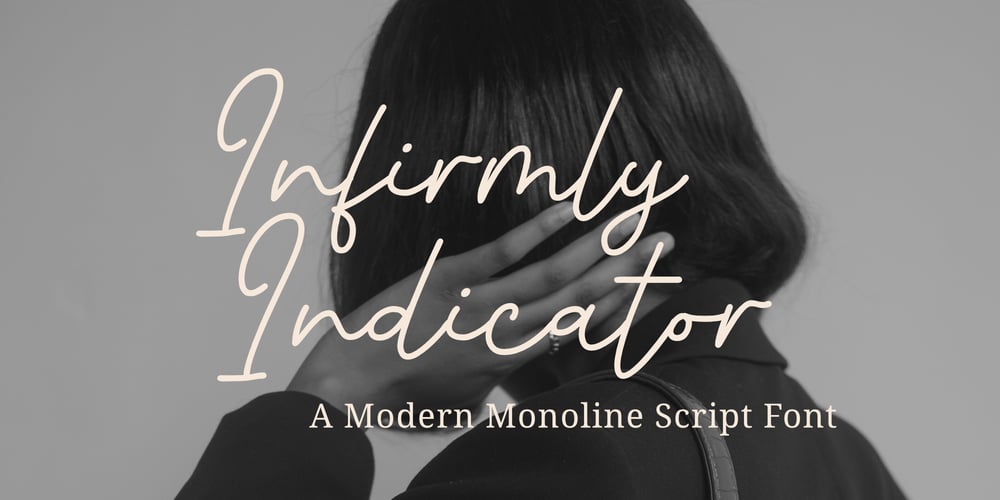
Infirmly Indicator Font Family was designed by Ali Hamidi and published by Ali Hamidi. Infirmly Indicator contains 1 styles and family package options. Infirmly Indicator is a modern and simple handwritten script with an classy touch, this font has a unique shape of each character that will add great impression to the design we made.